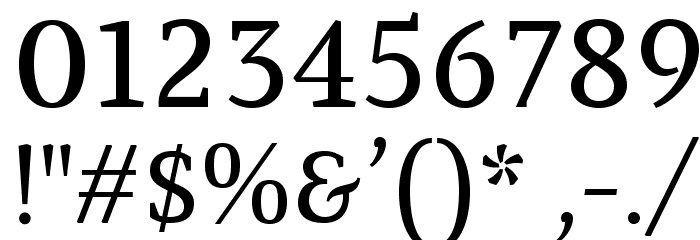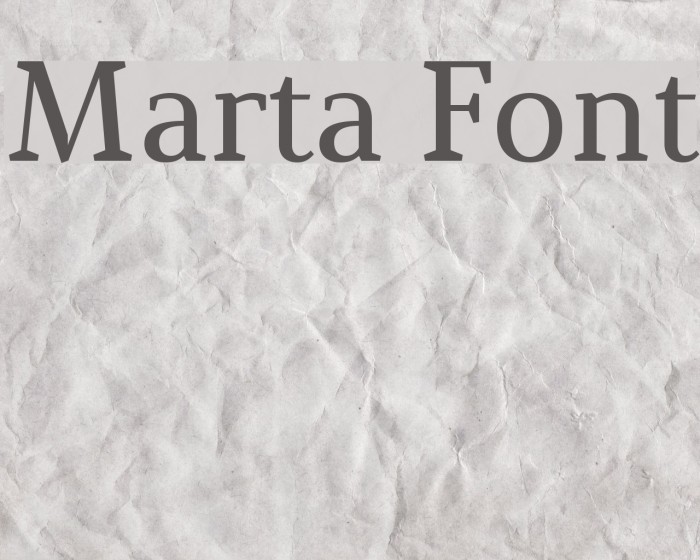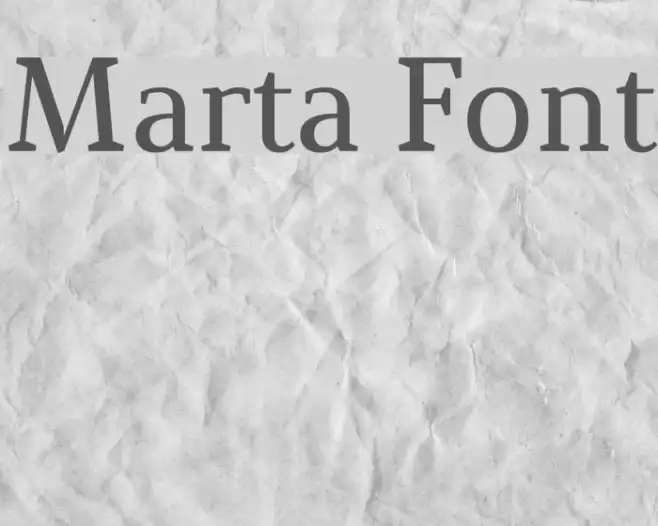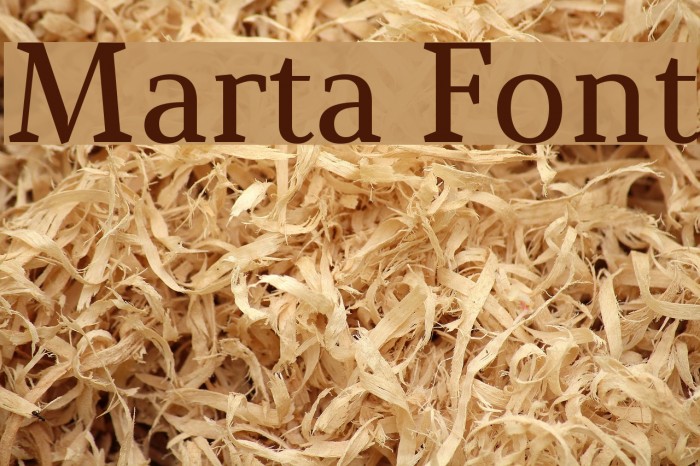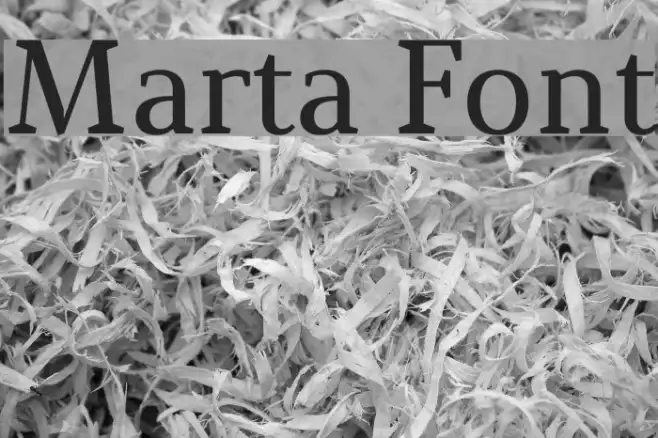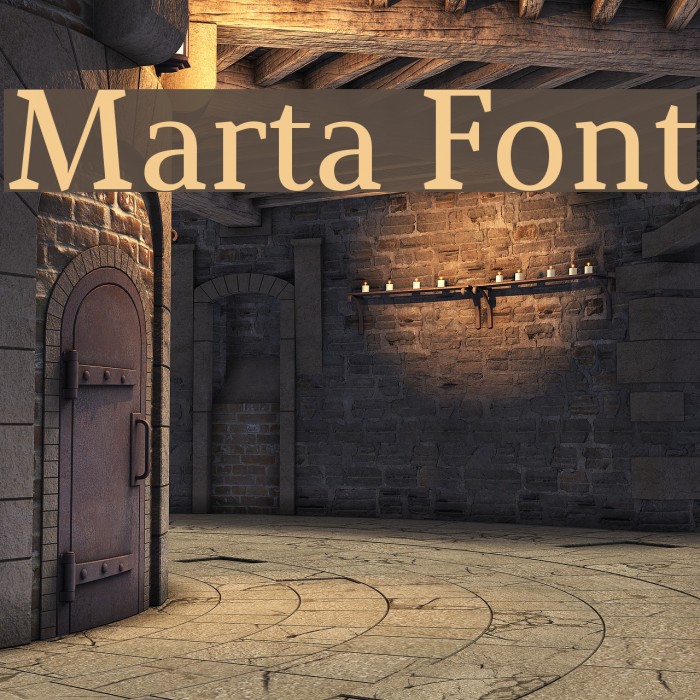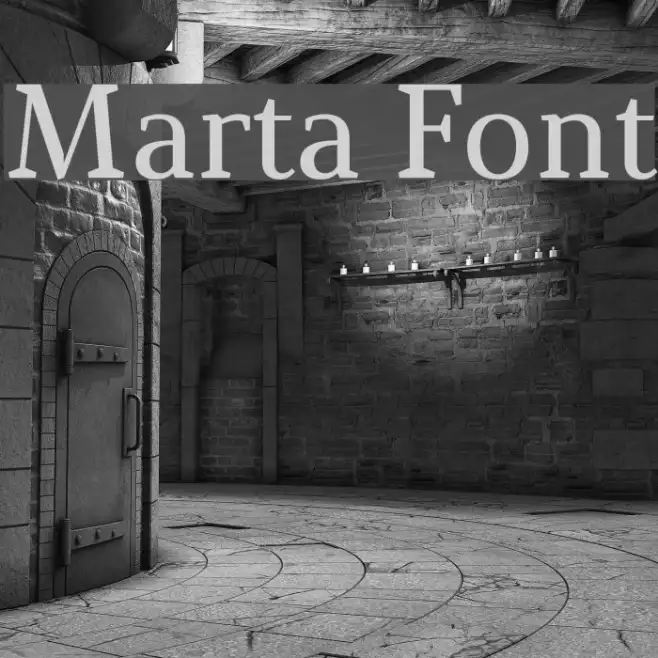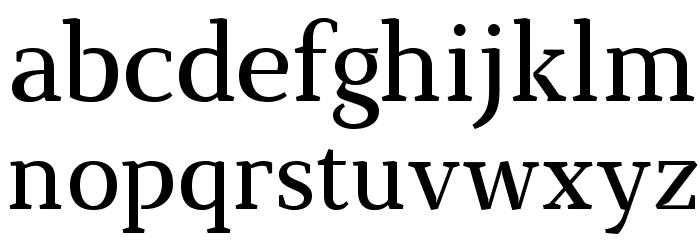
Marta Font
This font exhibits a classic serif style with a modern twist, characterized by its elegant and refined letterforms. The serifs are pronounced yet not overly exaggerated, providing a sense of sophistication and readability. The uppercase letters are bold and commanding, while the lowercase letters maintain a balanced and harmonious appearance. The numerals are clear and distinct, ensuring legibility across various applications. Special characters are well-integrated, maintaining the overall aesthetic of the font. The combination of traditional serif elements with a contemporary design makes it versatile for both digital and print media.
A classic serif font with modern elegance and refined letterforms.
• Font: Marta
• Proposed Projects: Ideal for editorial design, book covers, formal invitations, and branding projects that require a touch of sophistication.
• Category: Serif
• Contrast: Medium
• Overall Style: Classic
• Use Case: Headlines, Body text, Logos